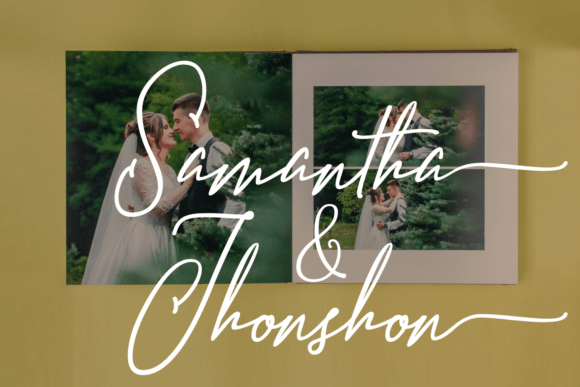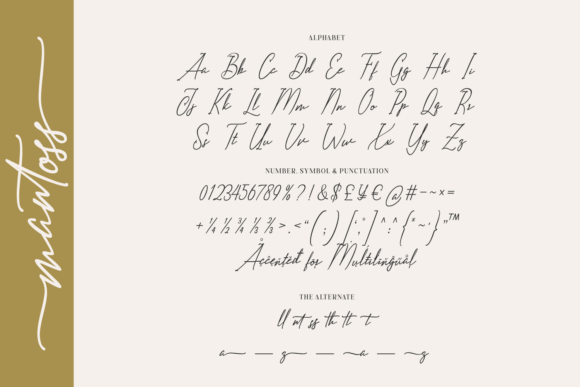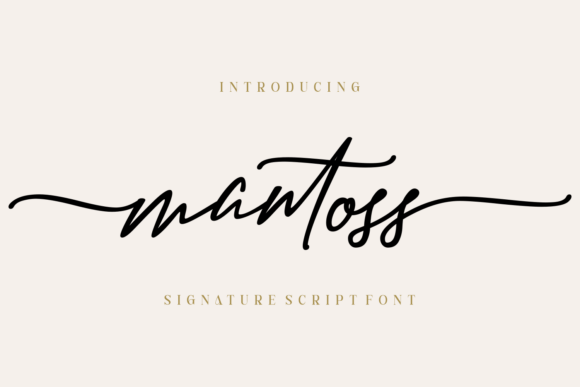
Introduction to Mantoss Font
Mantoss is a luxurious signature-style script font with long, sweeping strokes and a fine-lined elegance.
Perfect for upscale branding, personal logos, stationery, and photography watermarks, it exudes exclusivity and artistry with every character .
Key Features of Mantoss Font